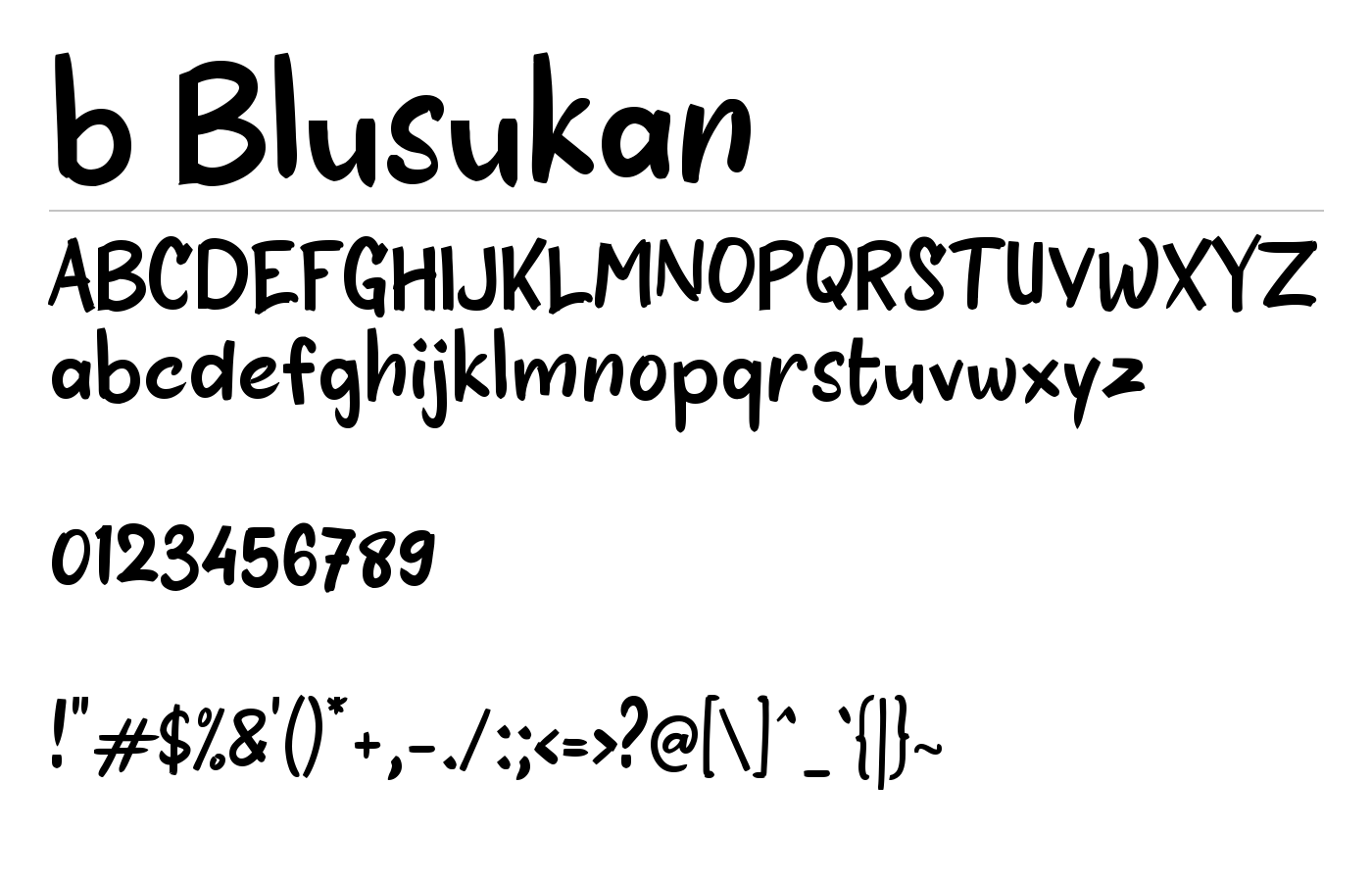
b Blusukan is a lively, casual handwritten font with a friendly and approachable feel. Its rounded, slightly uneven strokes and moderate weight give it an informal, playful personality that works well for creative projects, children’s materials, and relaxed branding. This font suits headlines, logos, and designs needing a warm, personal touch.
b Blusukan Font